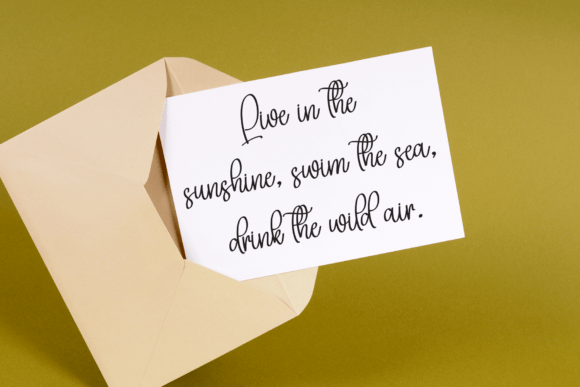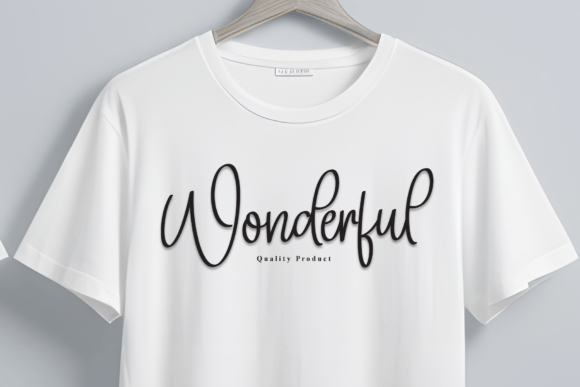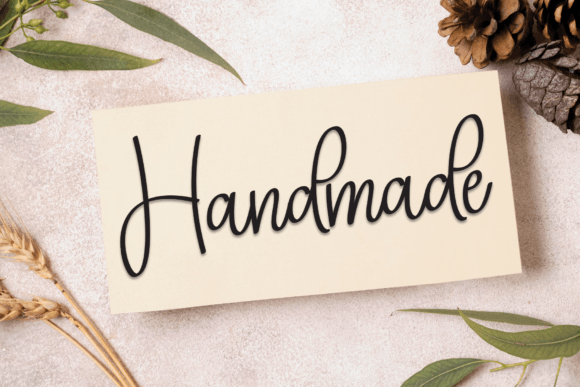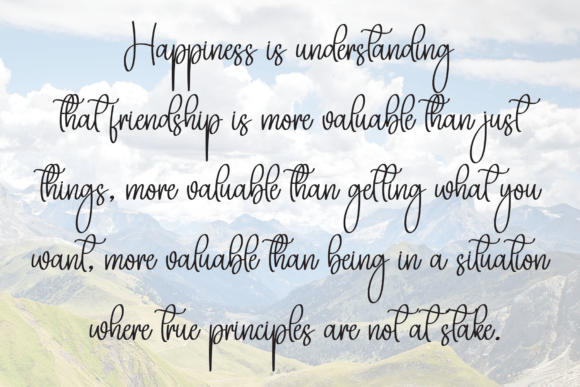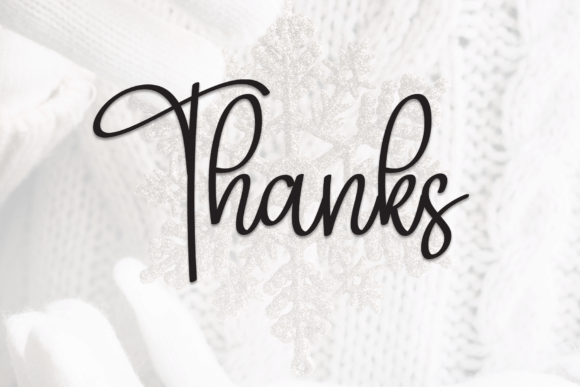
Introducing Embroidery Winter Font: Elevate Your Designs with Elegance
Are you a designer or crafter looking for a font that adds a touch of sophistication and whimsy to your projects? Look no further than Embroidery Winter Font. This stylish and incredibly elegant script font is perfect for a variety of design applications, from wedding invitations and thank you cards to quotes, greeting cards, logos, and business cards.
The Charm of Embroidery Winter Font
Embroidery Winter Font boasts a unique, handwritten aesthetic that instantly elevates any design. Its elegant script style, reminiscent of traditional embroidery, adds a touch of luxury and refinement to your projects. The font’s flowing lines and delicate curves create a sense of movement and fluidity, making it perfect for designs that require a personal and human touch.
One of the standout features of Embroidery Winter Font is its versatility. This font can be used for a wide range of design applications, including:
- Wedding Invitations: Add a touch of romance and elegance to your wedding invitations with Embroidery Winter Font.
- Thank You Cards: Express your gratitude in style with beautifully designed thank you cards featuring Embroidery Winter Font.
- Quotes and Greeting Cards: Add a personal touch to your quotes and greeting cards with this elegant script font.
- Logos and Business Cards: Elevate your brand with a sophisticated logo and business card design featuring Embroidery Winter Font.
Why Choose Embroidery Winter Font?
So, why should you choose Embroidery Winter Font for your design projects? Here are just a few reasons:
- Elegant and Sophisticated: Embroidery Winter Font adds a touch of elegance and sophistication to any design.
- Versatile: This font can be used for a wide range of design applications, from wedding invitations to logos and business cards.
- Easy to Read: Despite its elegant style, Embroidery Winter Font is easy to read, making it perfect for designs that require a clear and concise message.
- Unique and Creative: With Embroidery Winter Font, you can add a unique and creative touch to your designs, setting them apart from the rest.
Tips for Using Embroidery Winter Font
To get the most out of Embroidery Winter Font, here are a few tips to keep in mind:
- Pair with a Simple Background: Let Embroidery Winter Font take center stage by pairing it with a simple background that doesn’t compete with the font’s elegance.
- Experiment with Colors: Try pairing Embroidery Winter Font with different colors to create a unique and eye-catching design.
- Use for Headlines and Titles: Embroidery Winter Font is perfect for headlines and titles, adding a touch of elegance and sophistication to your designs.
In conclusion, Embroidery Winter Font is a stylish and incredibly elegant script font that can elevate any design project. With its versatile style, ease of use, and unique aesthetic, this font is perfect for designers and crafters looking to add a touch of sophistication and whimsy to their work. Whether you’re designing wedding invitations, thank you cards, or logos and business cards, Embroidery Winter Font is sure to impress.